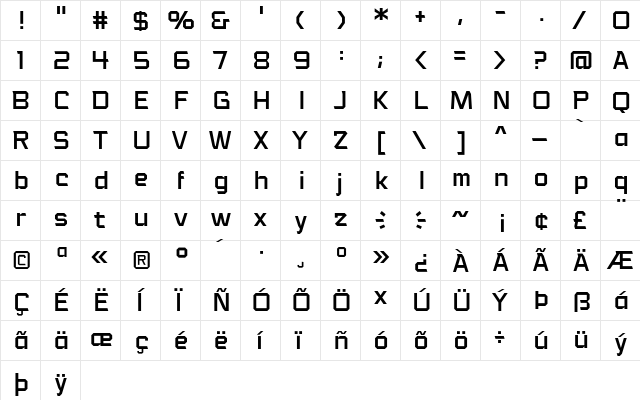
Voice Activated BB Regular
| Foundry | Nate Piekos. Blambot.com |
| Designer | Nate Piekos |
Design Context for Voice Activated BB Typeface
Voice Activated BB takes a measured approach to typography — its balanced proportions and neutral character make it a reliable workhorse for both digital and print work.